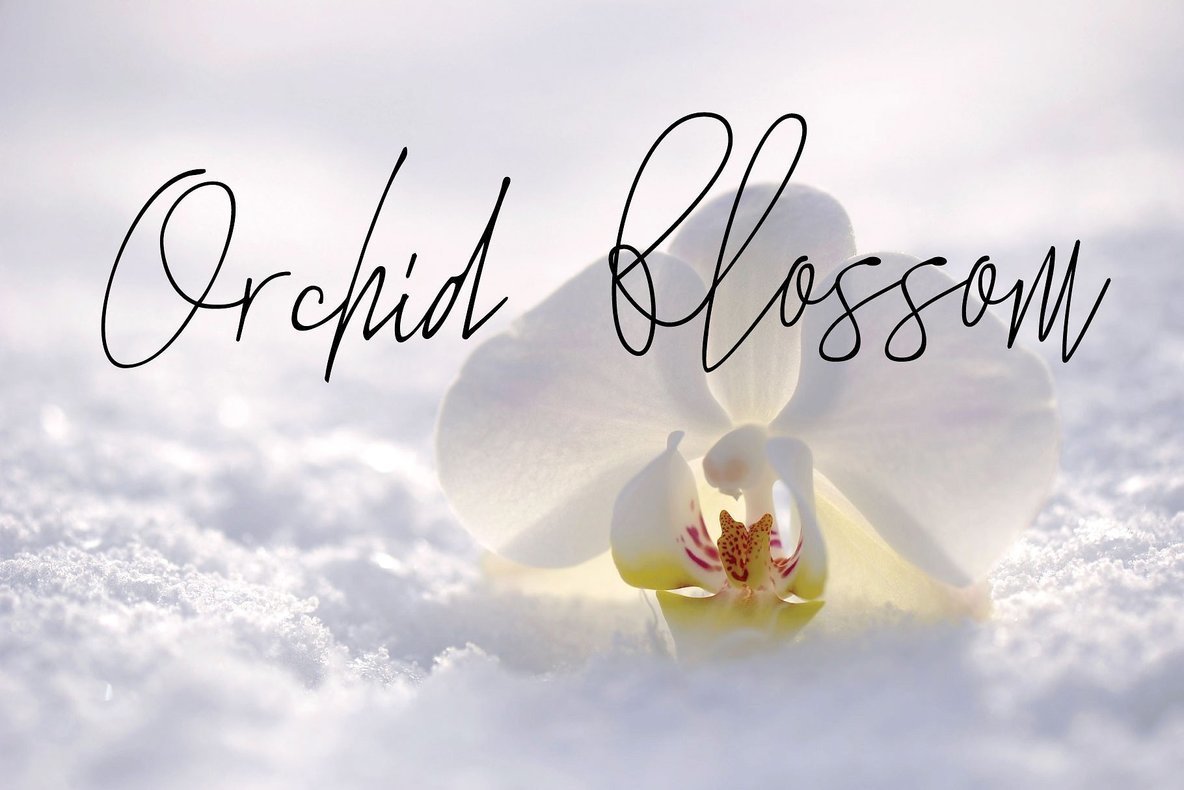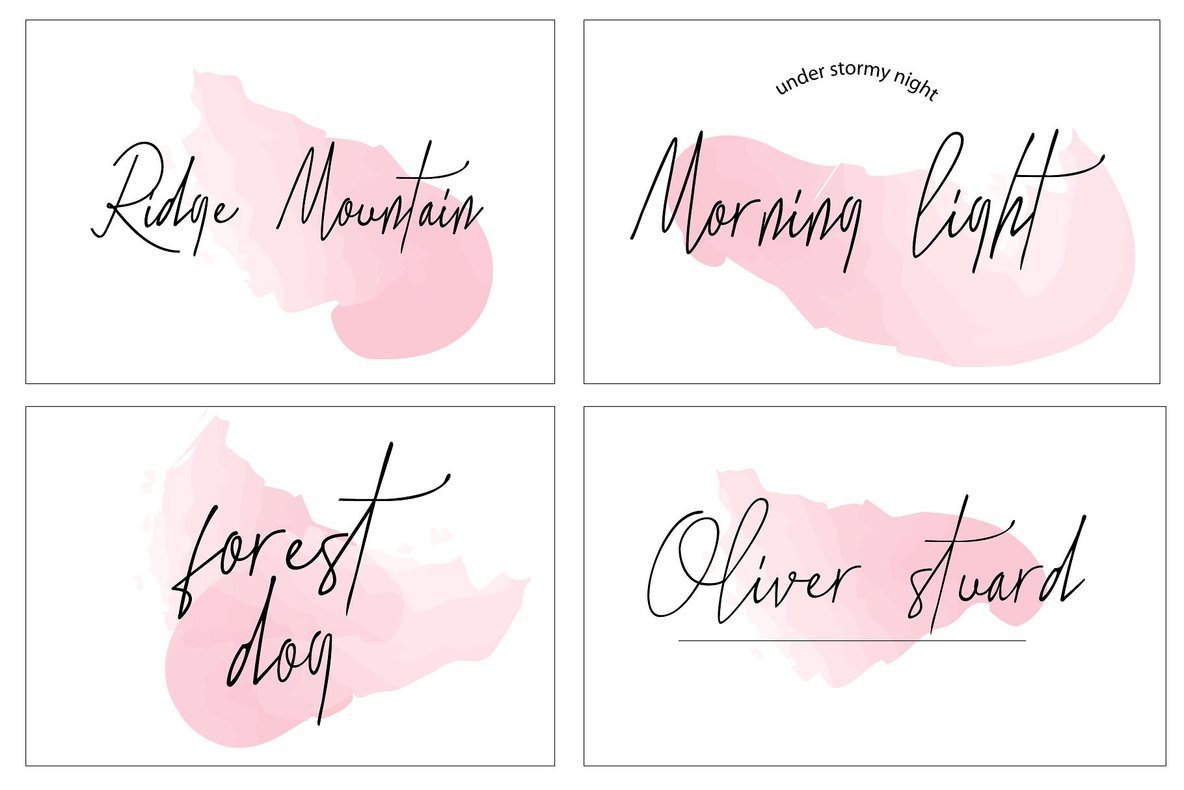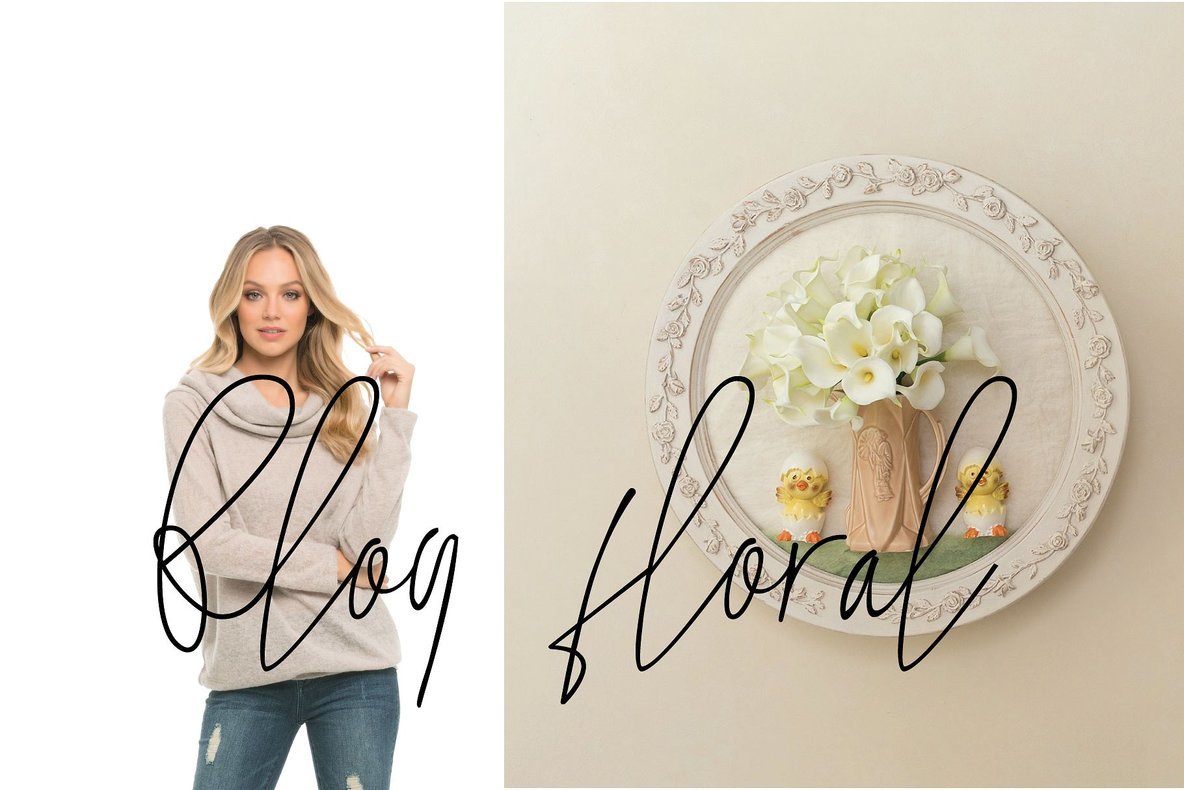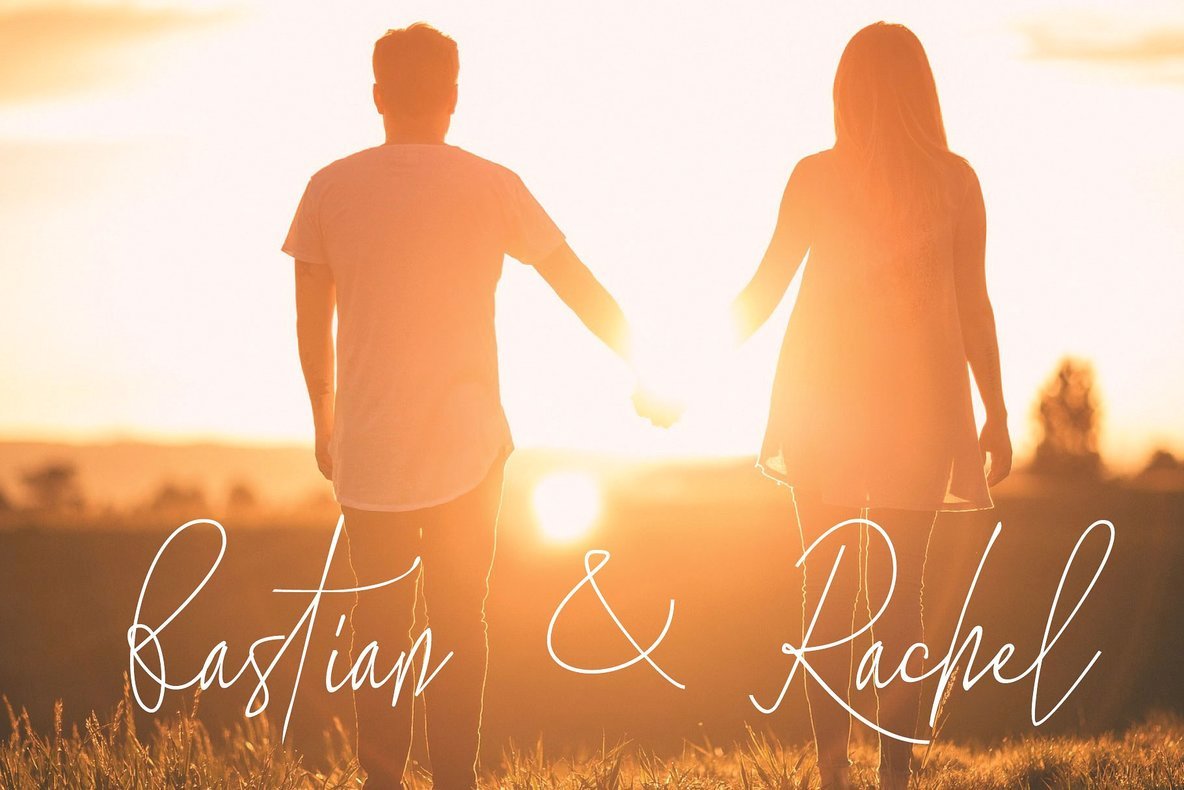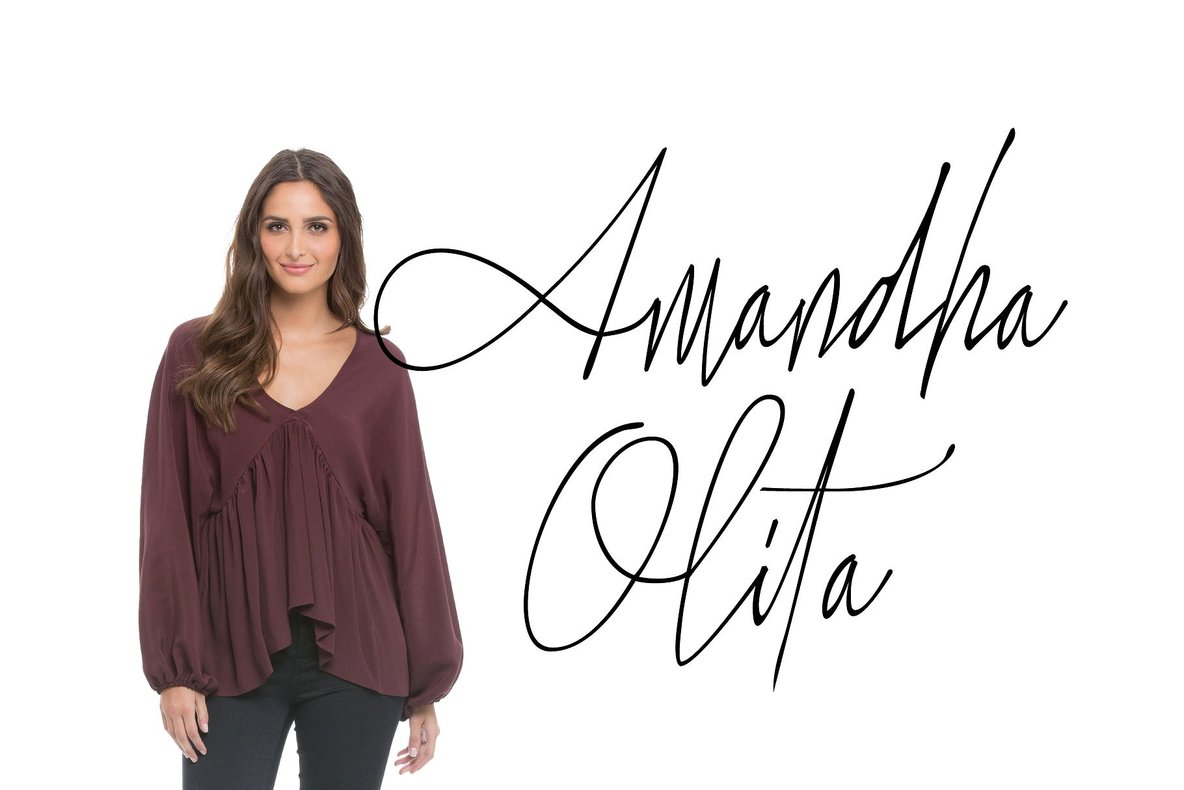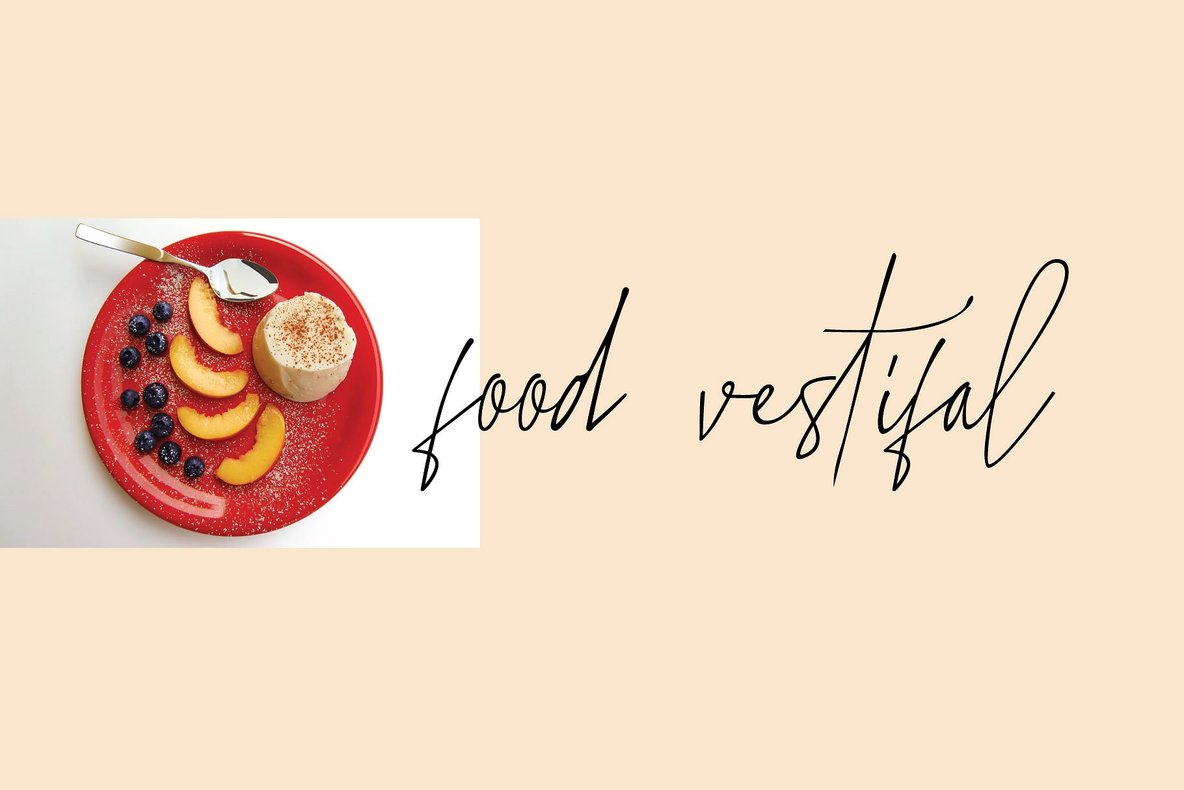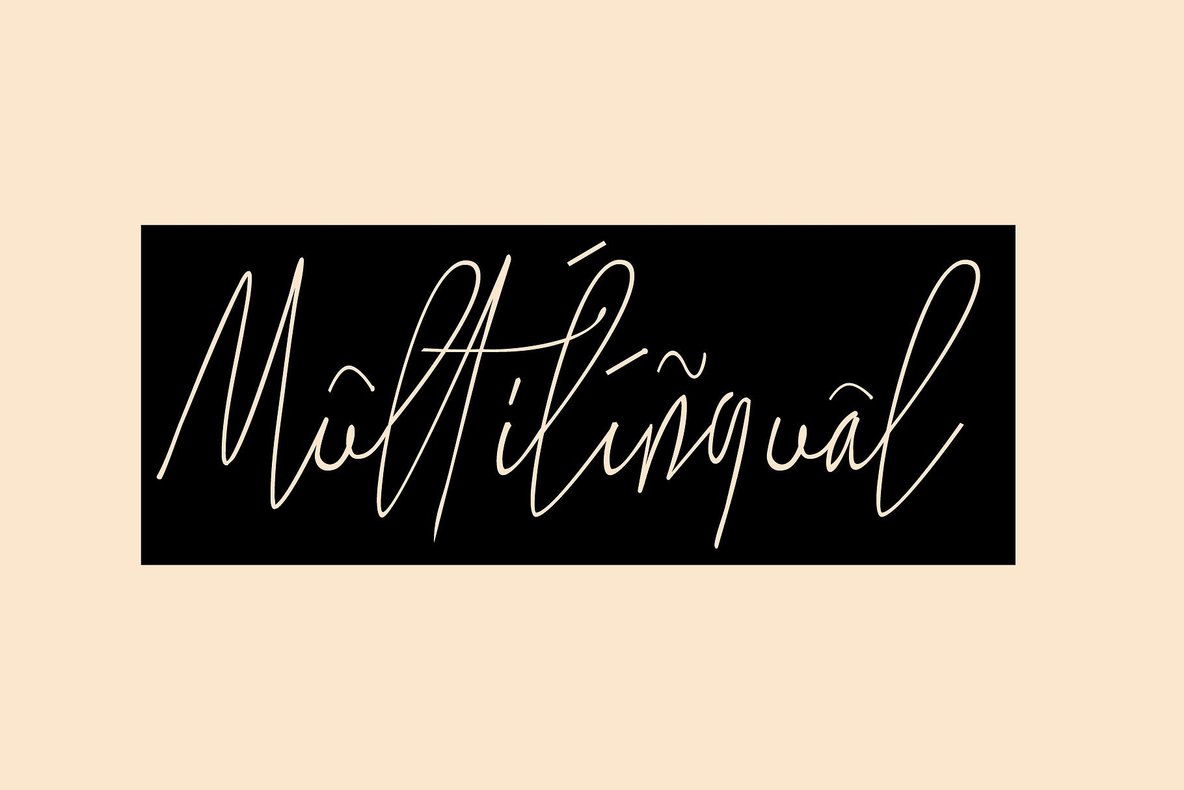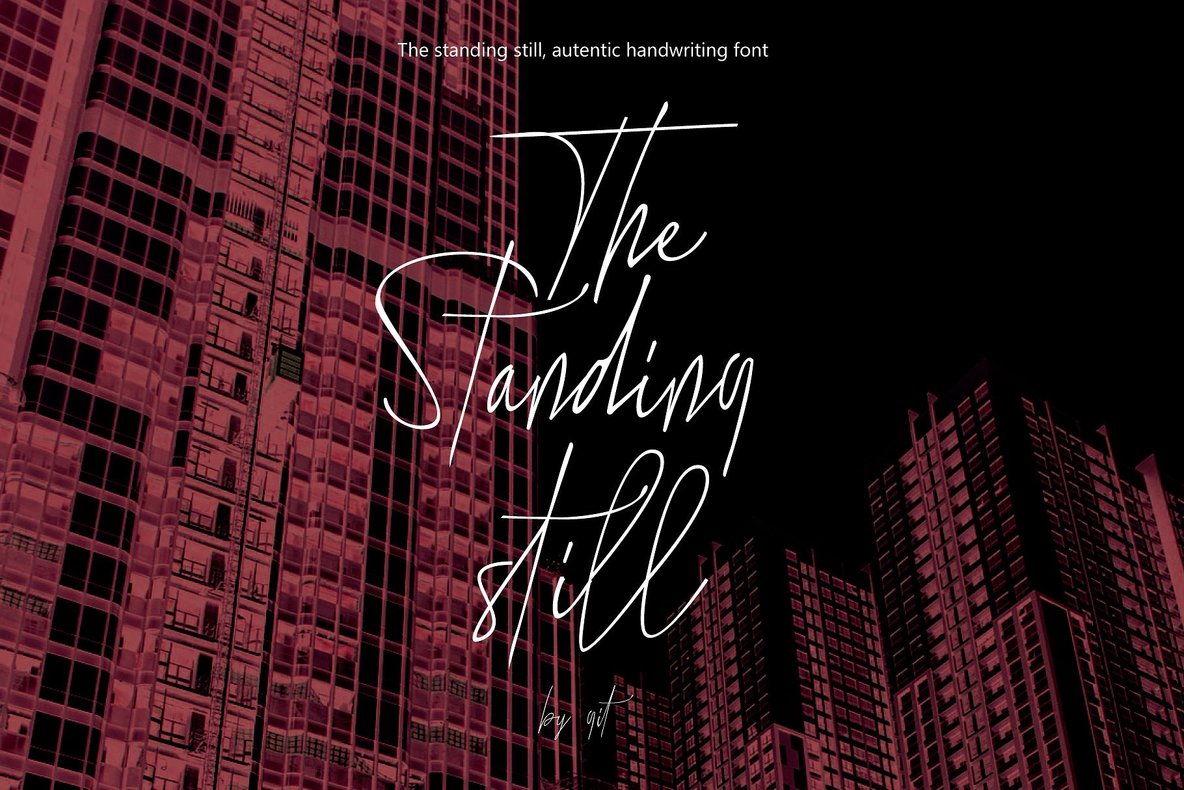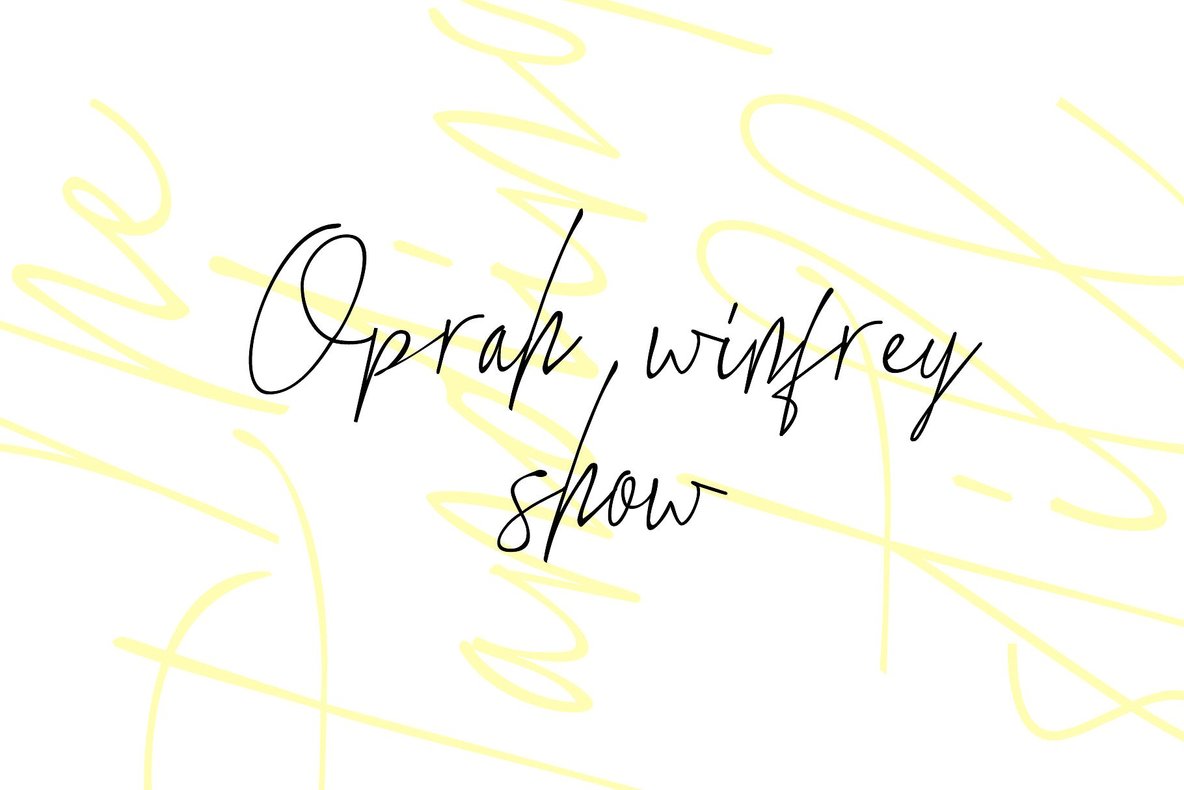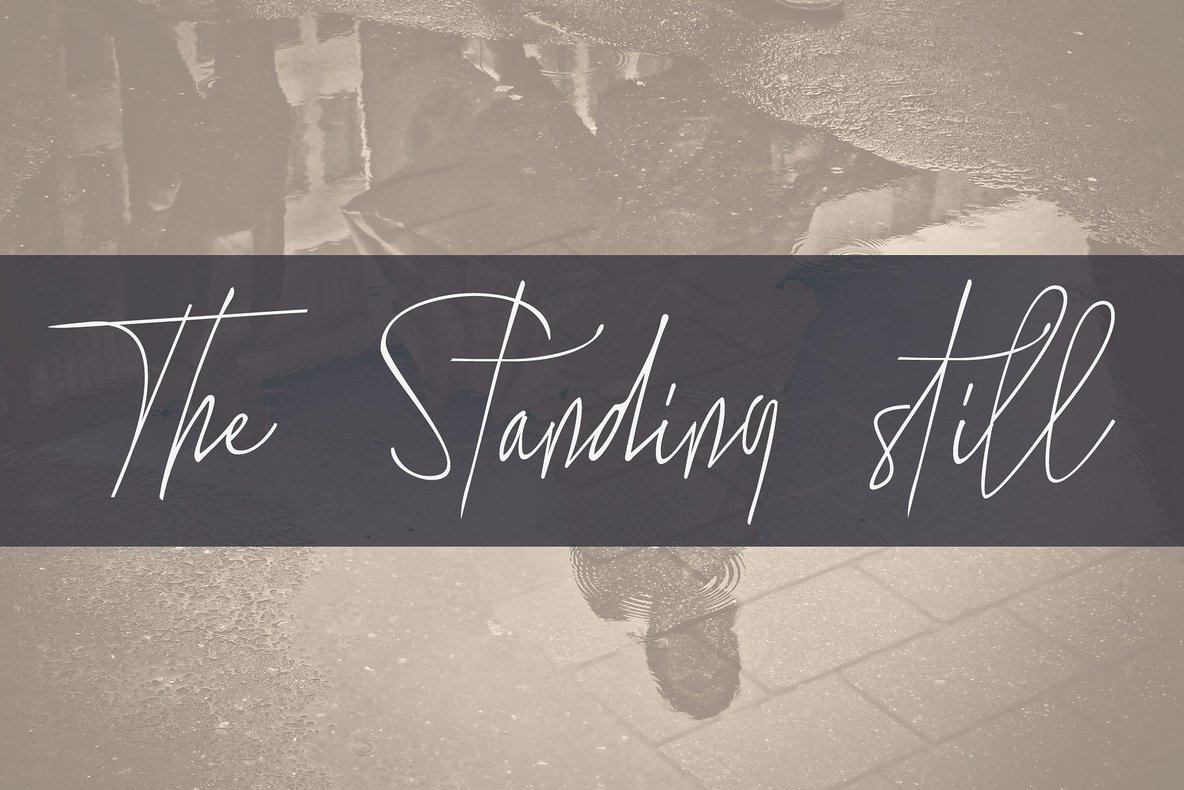
The Standing still Font
The Standing Still font embodies the essence of genuine handwriting, meticulously refined into a versatile script typeface. Ideal for applications ranging from wedding invitations to fashionable publications, this typeface imparts a hand-lettered aesthetic that is both engaging and timeless.The Standing Still: Authentic Handwritten Script Typeface